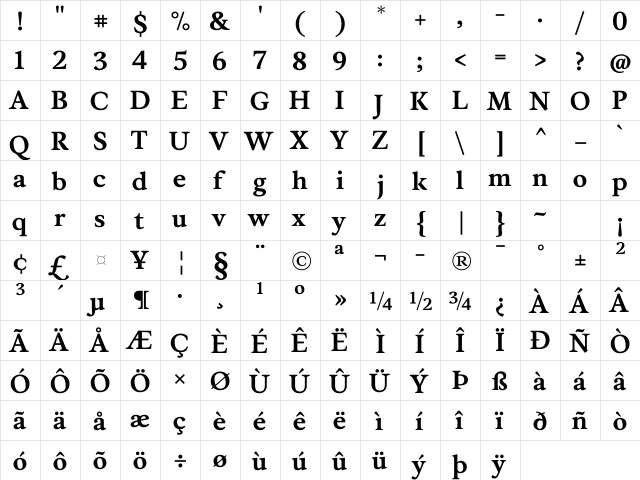
MuseeBold Regular
| Foundry | Dino dos Santos _DSType |
Design Context for MuseeBold Typeface
MuseeBold offers clean, dependable letterforms without strong stylistic allegiance, making it a practical choice for designers who need flexibility. The heavy weight commands attention and anchors typographic hierarchies.